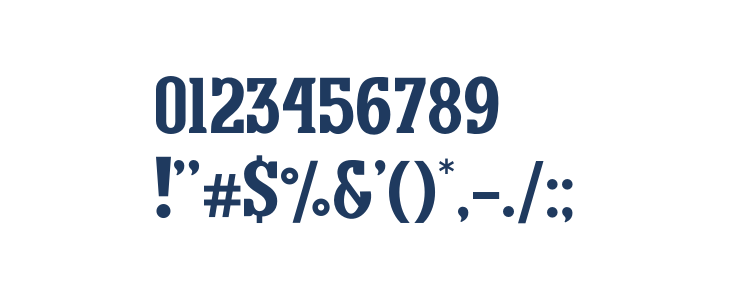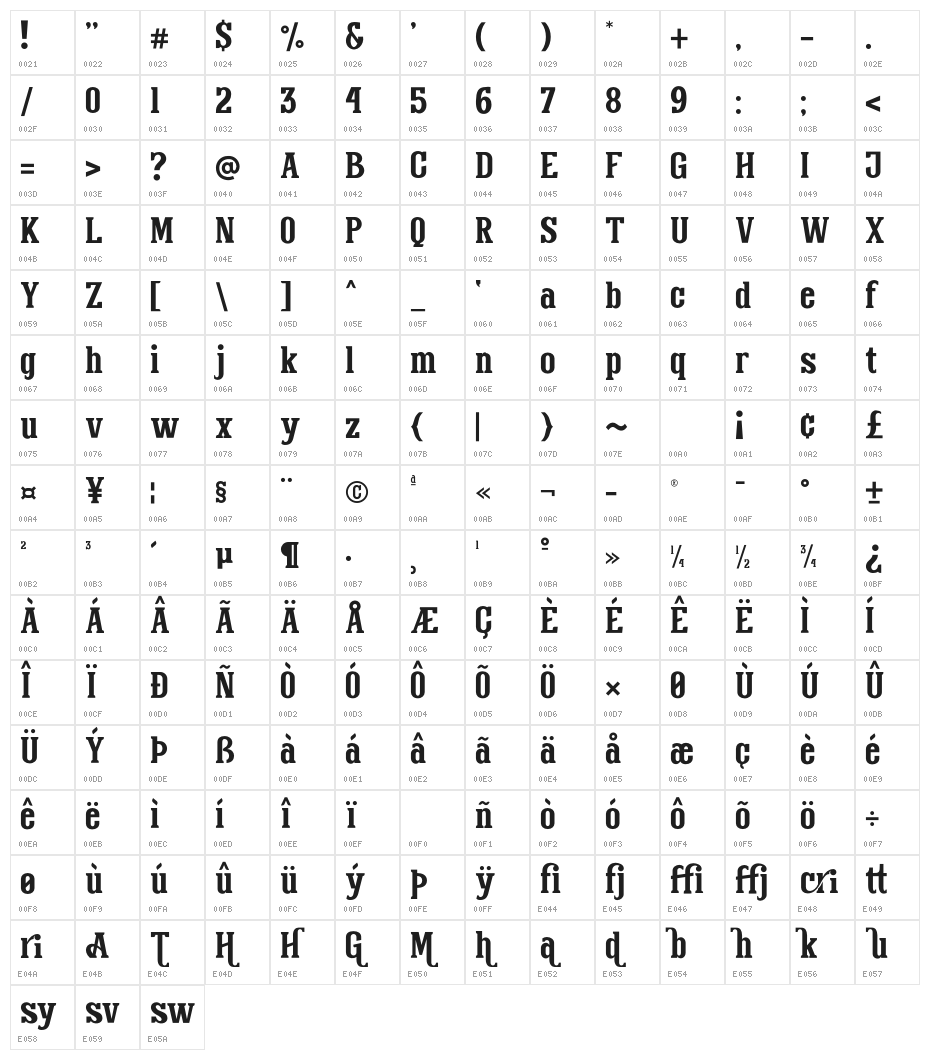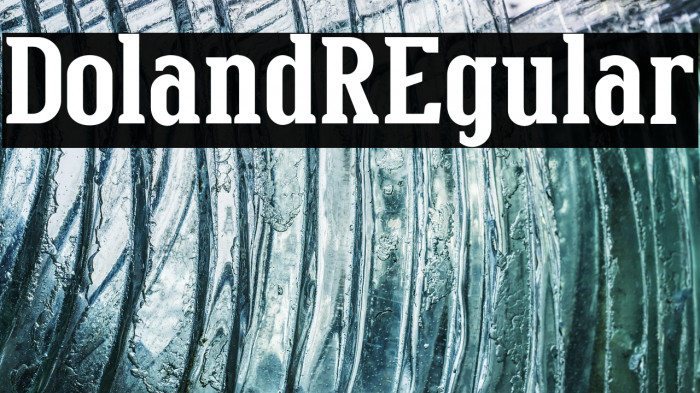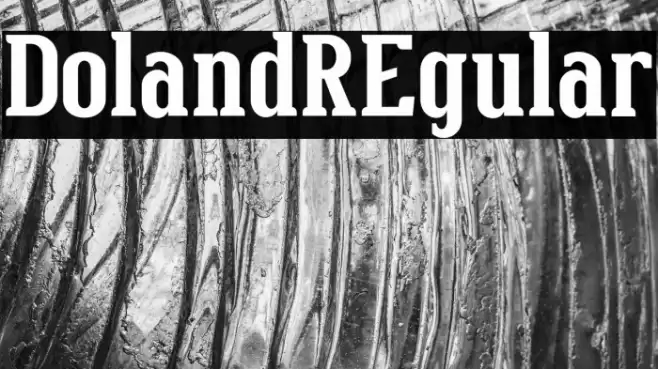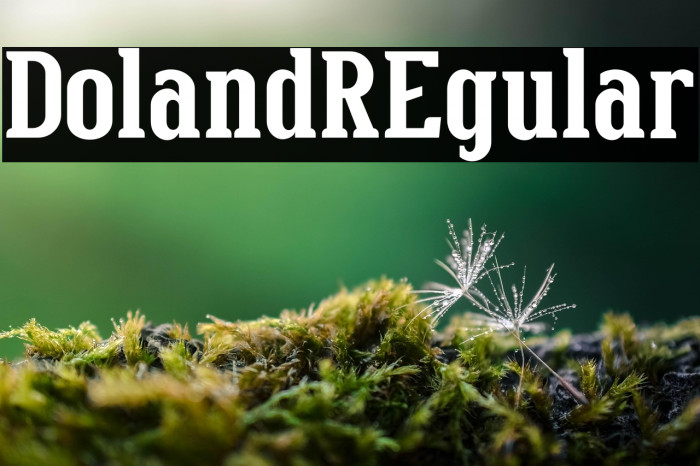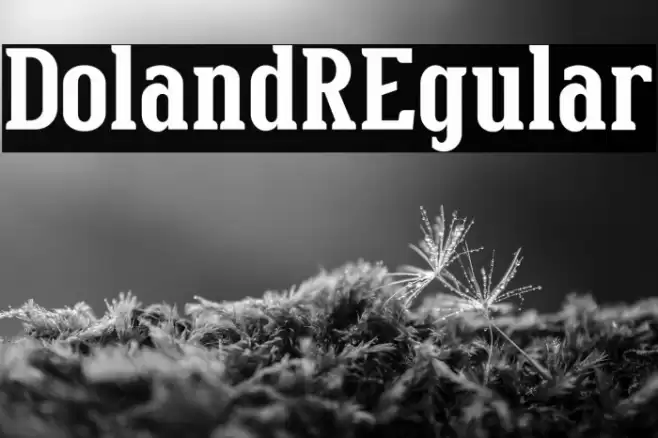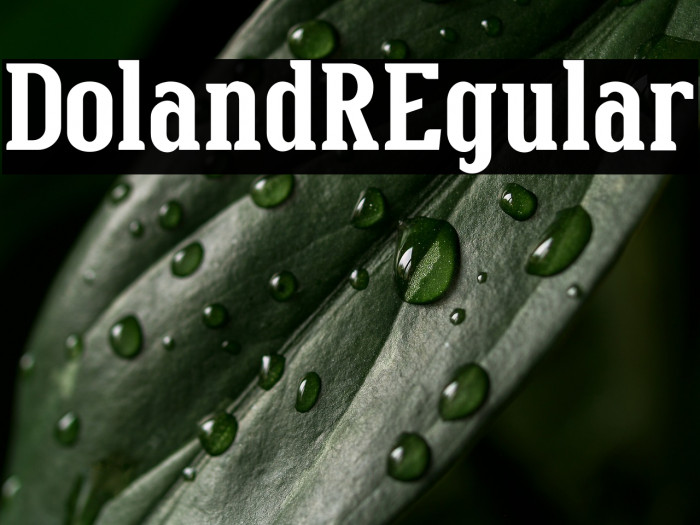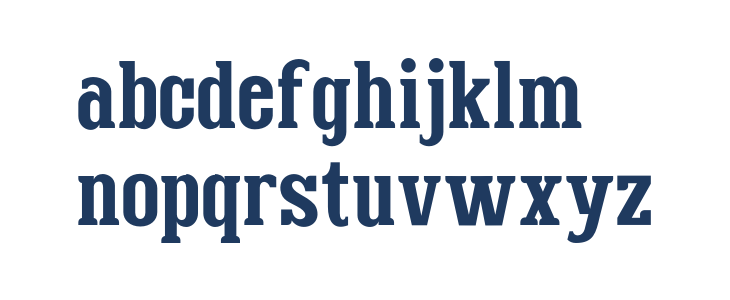
DolandREgular Font
DolandREgular Description
This font features bold, strong serifs with a classic and authoritative presence. The uppercase letters are tall and commanding, while the lowercase letters maintain a consistent weight and style, providing a cohesive look. The numerals are robust and clear, ensuring readability in various contexts. Special characters are designed with the same boldness, making them stand out effectively. The overall design is reminiscent of traditional serif fonts but with a modern twist, making it suitable for both contemporary and classic applications.
| Proposed Projects | Ideal for headlines, posters, branding, and editorial design where a strong, authoritative presence is desired. |